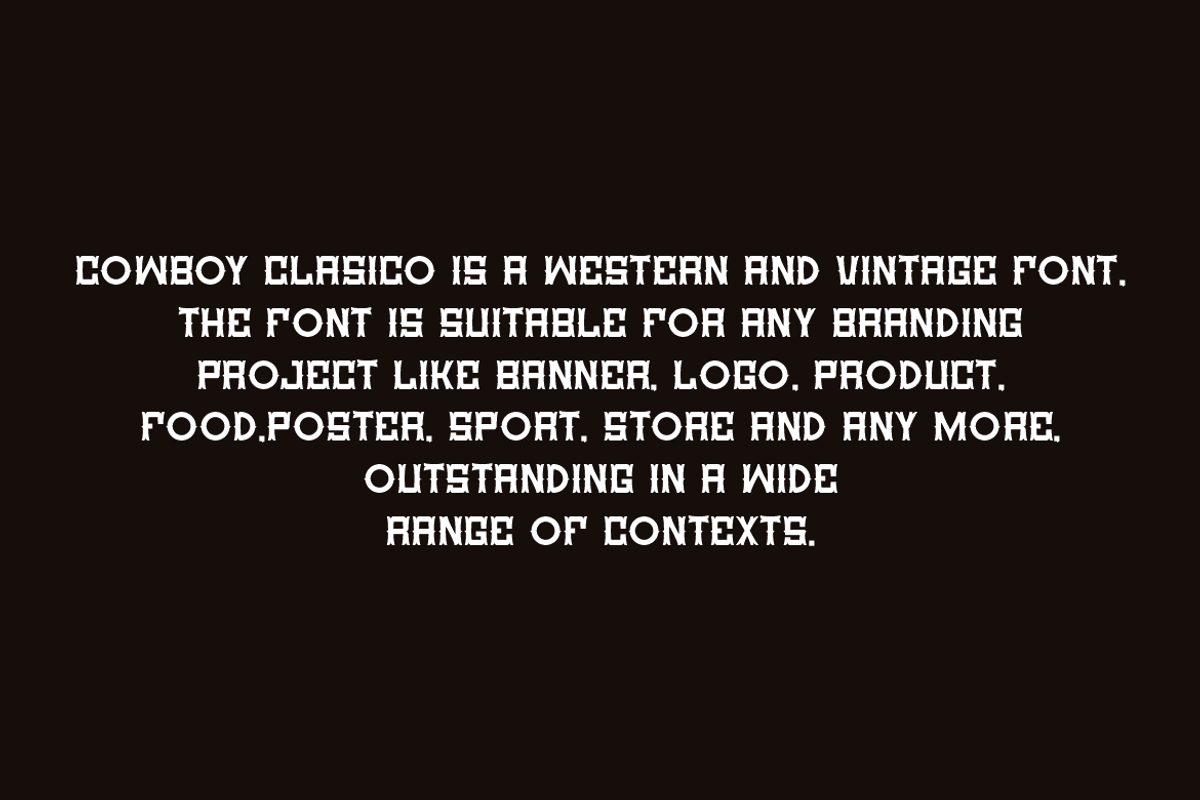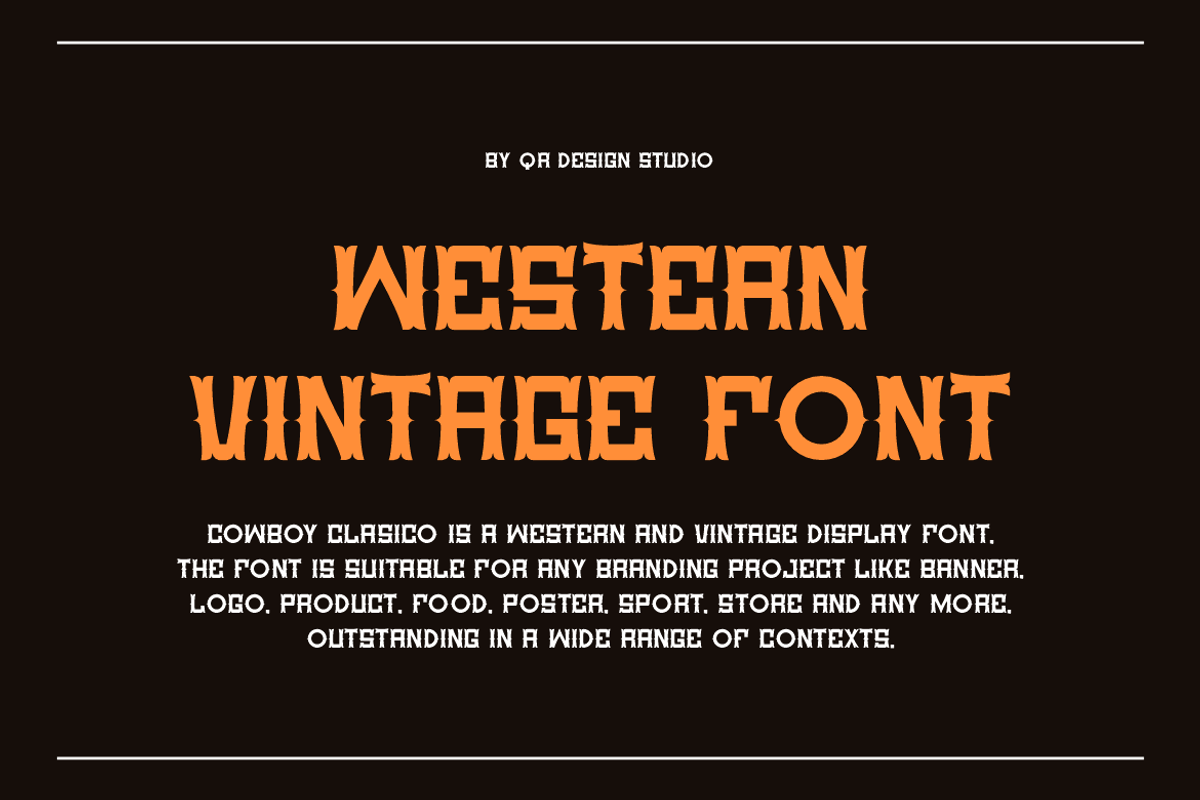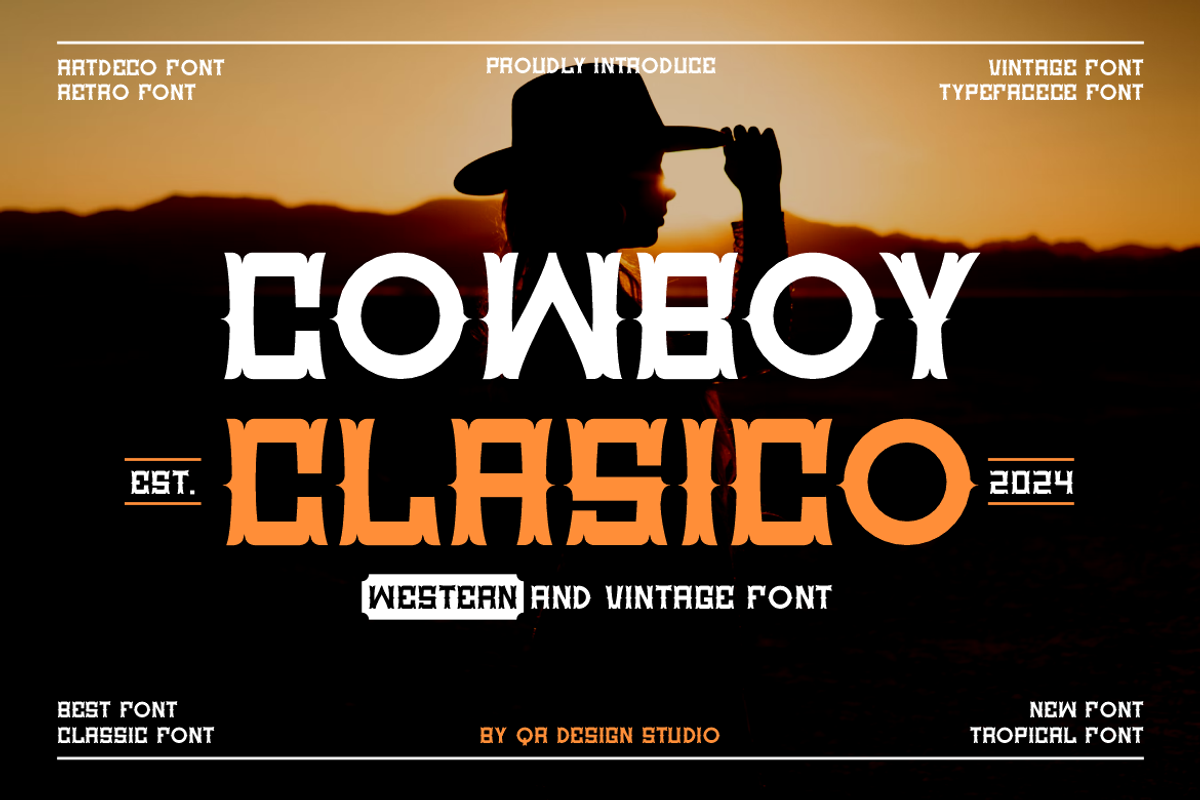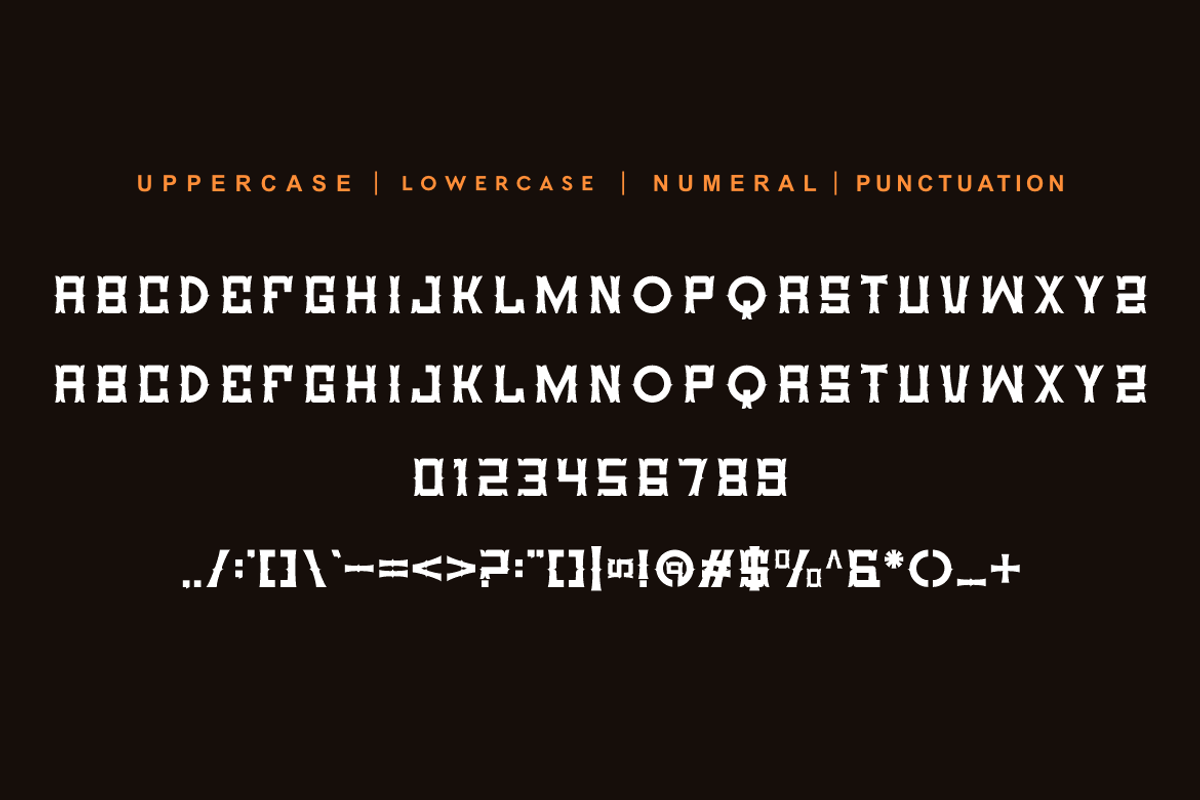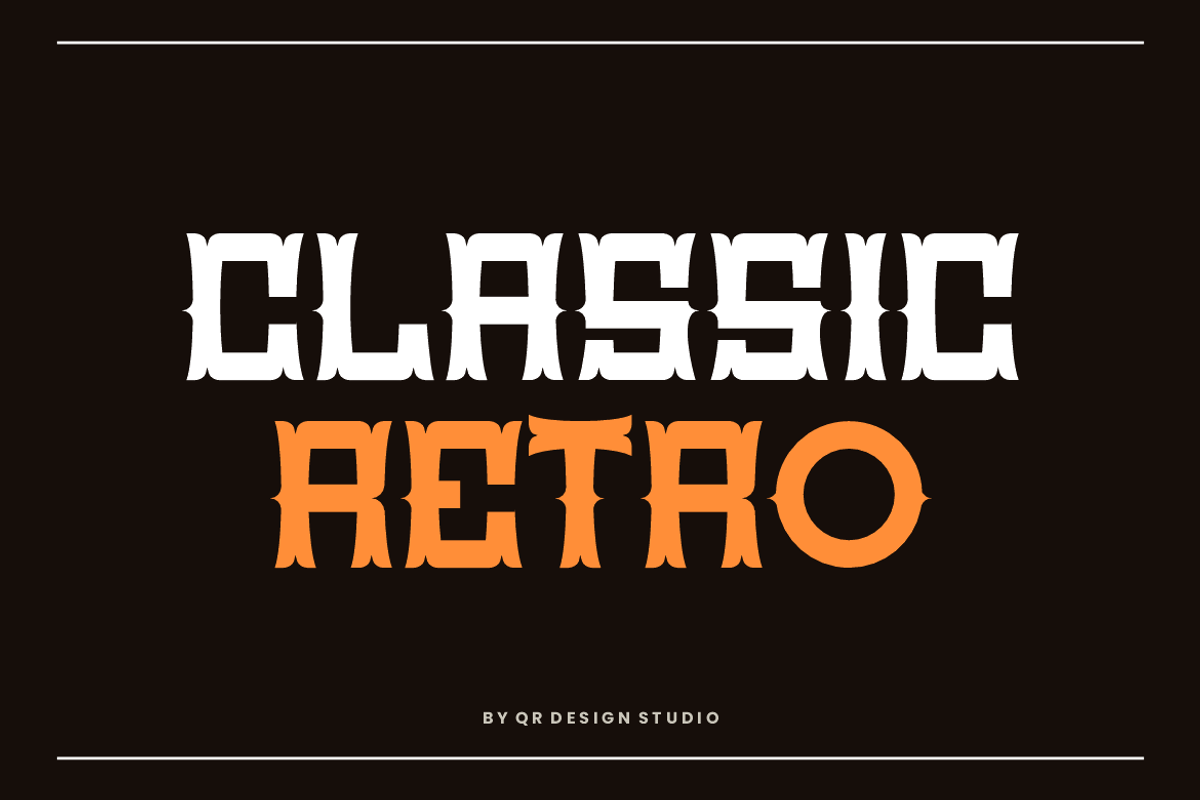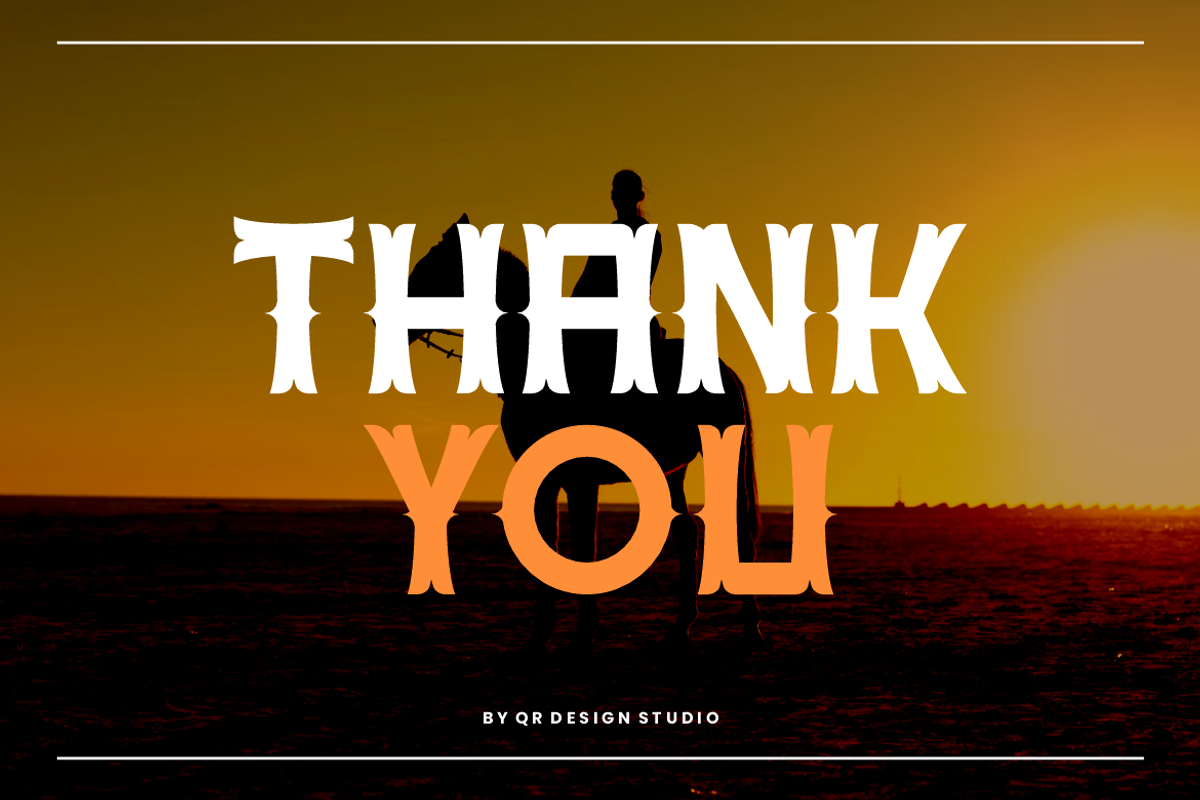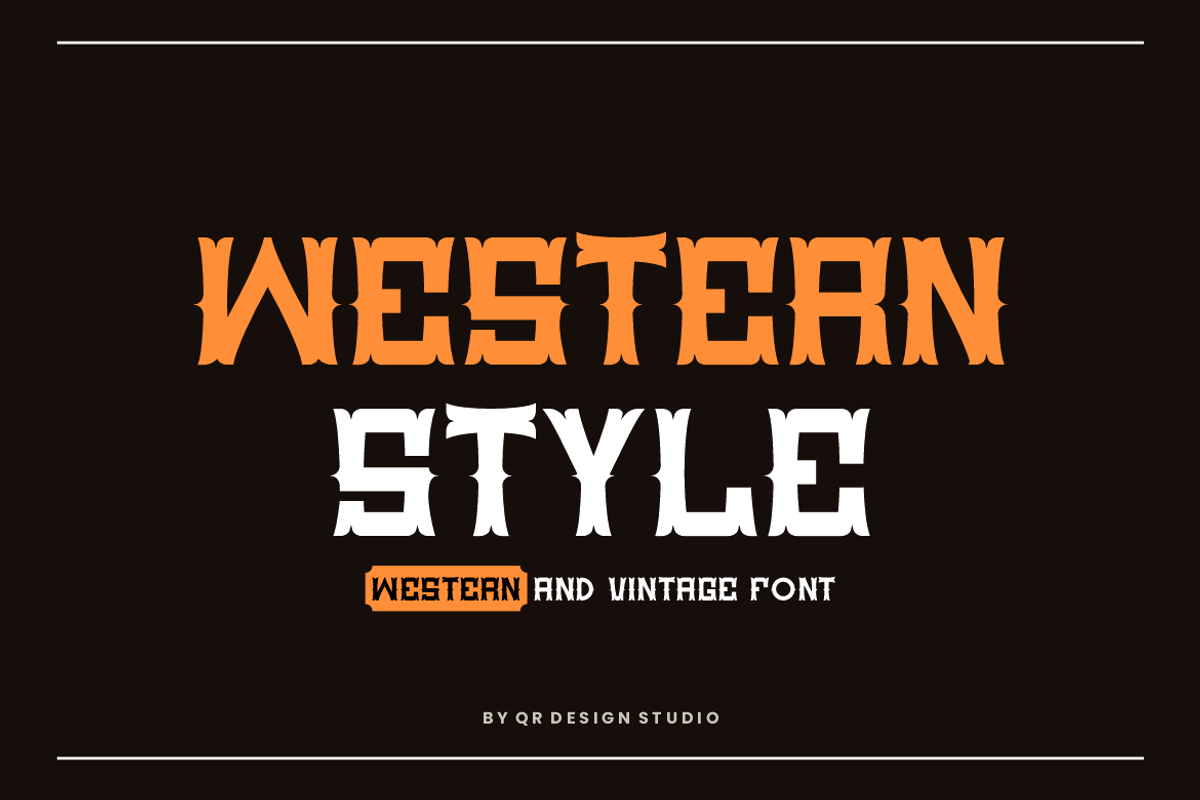
Cowboy Clasico - Western & Vintage
Cowboy Clasico Font is a decorative and authentic display font. The font is suitable for any branding project like poster, logo, sport, and many more. Outstanding in a wide range of contexts.